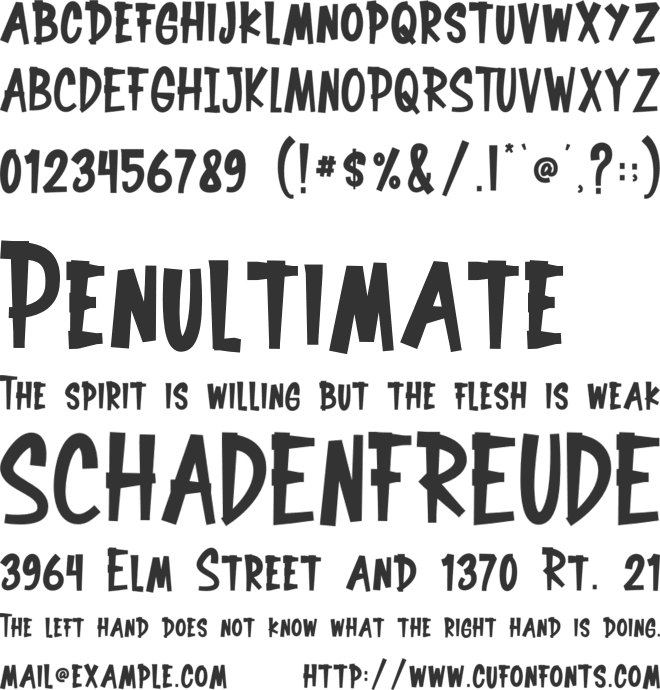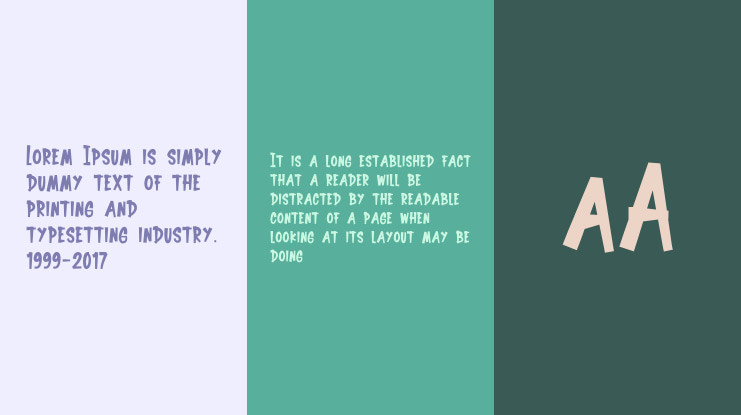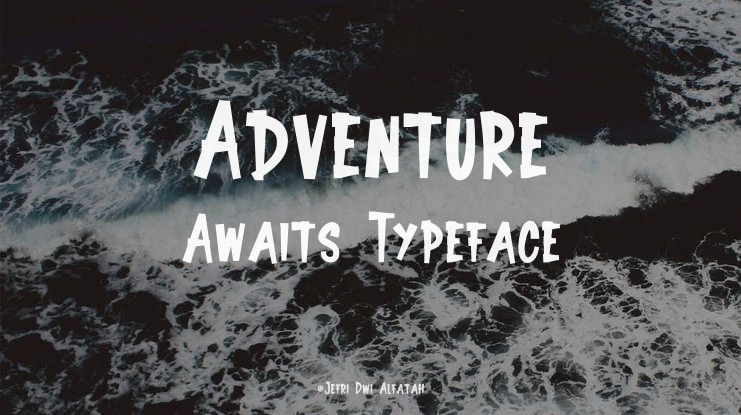
Adventure Awaits Font
Jefri Dwi Alfatah
Adventure Awaits is a handcrafted display font that brings energy, creativity, and a spirit of exploration to your design. With its bold and lively strokes, this font is perfect for projects that aim to inspire, motivate, and stand out.